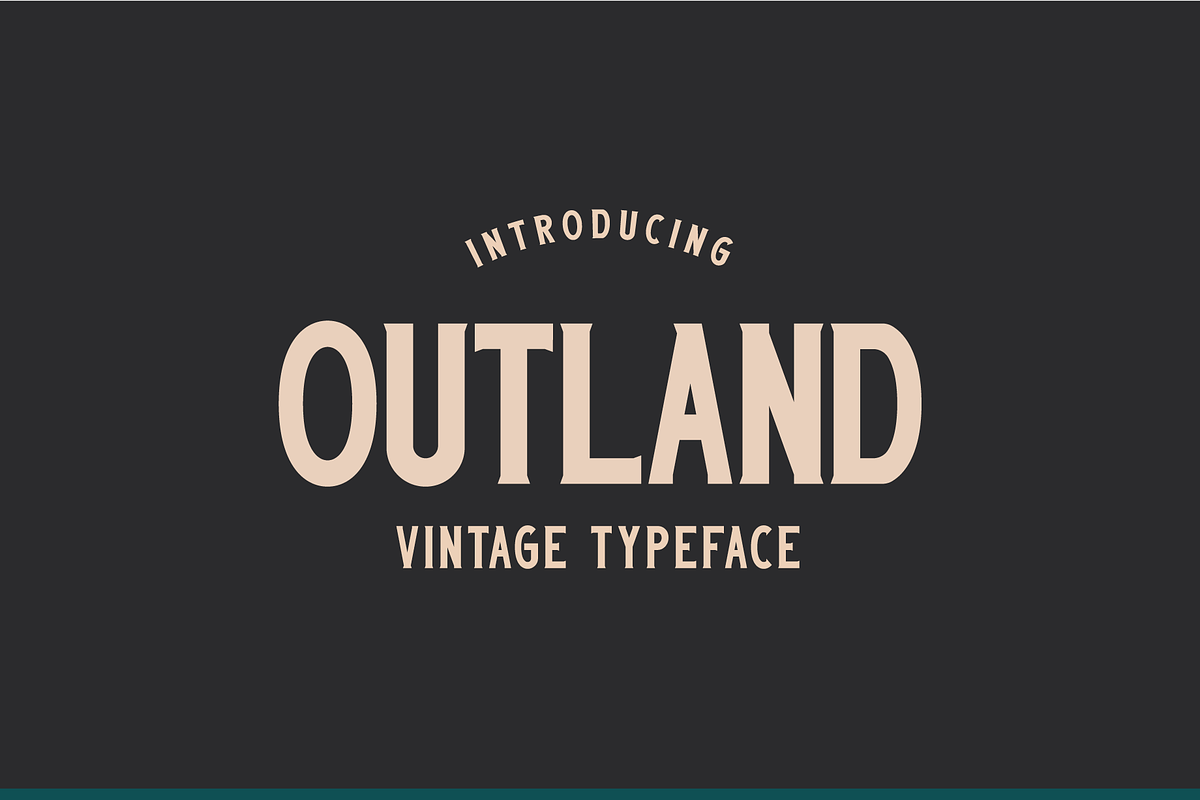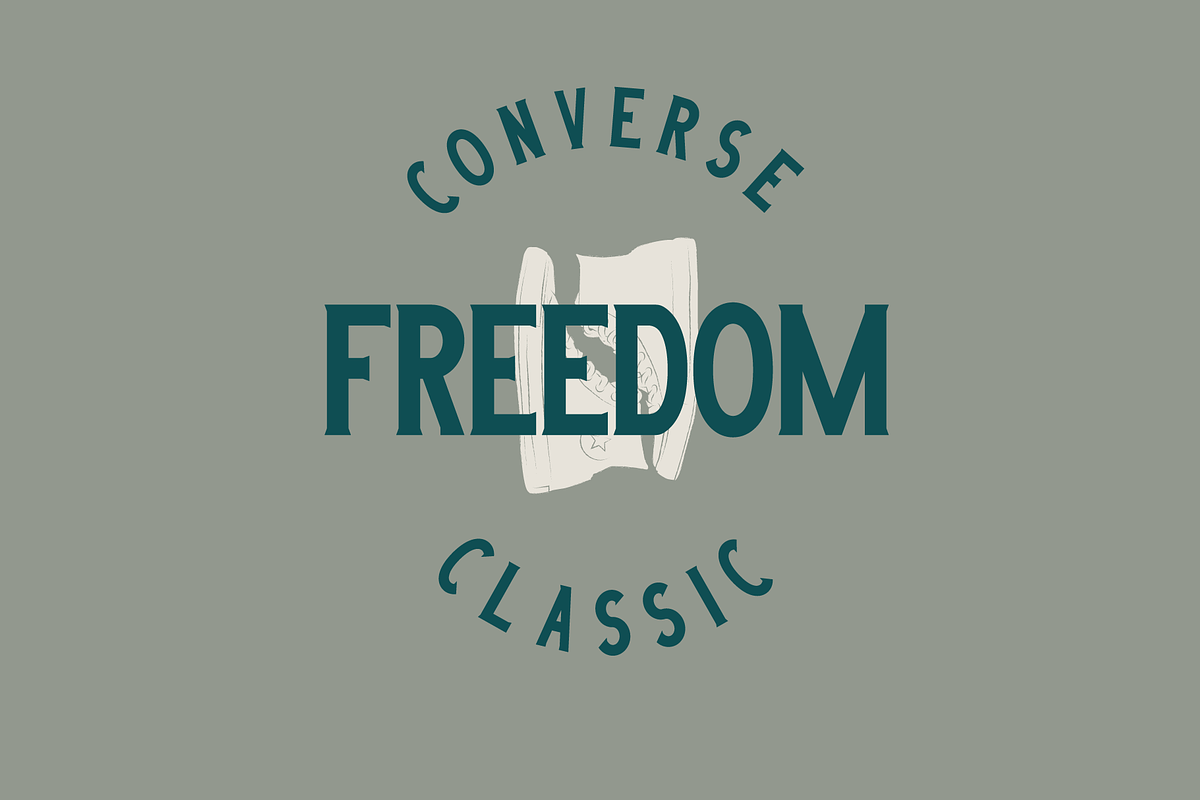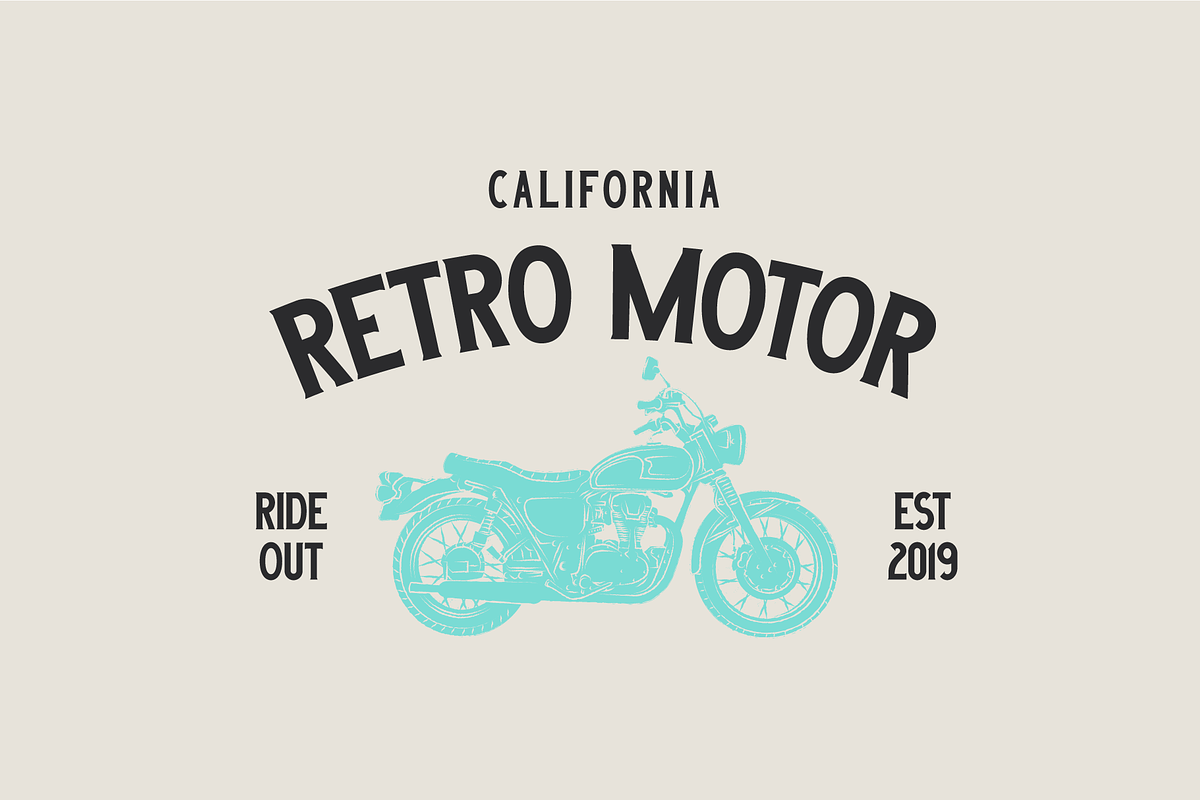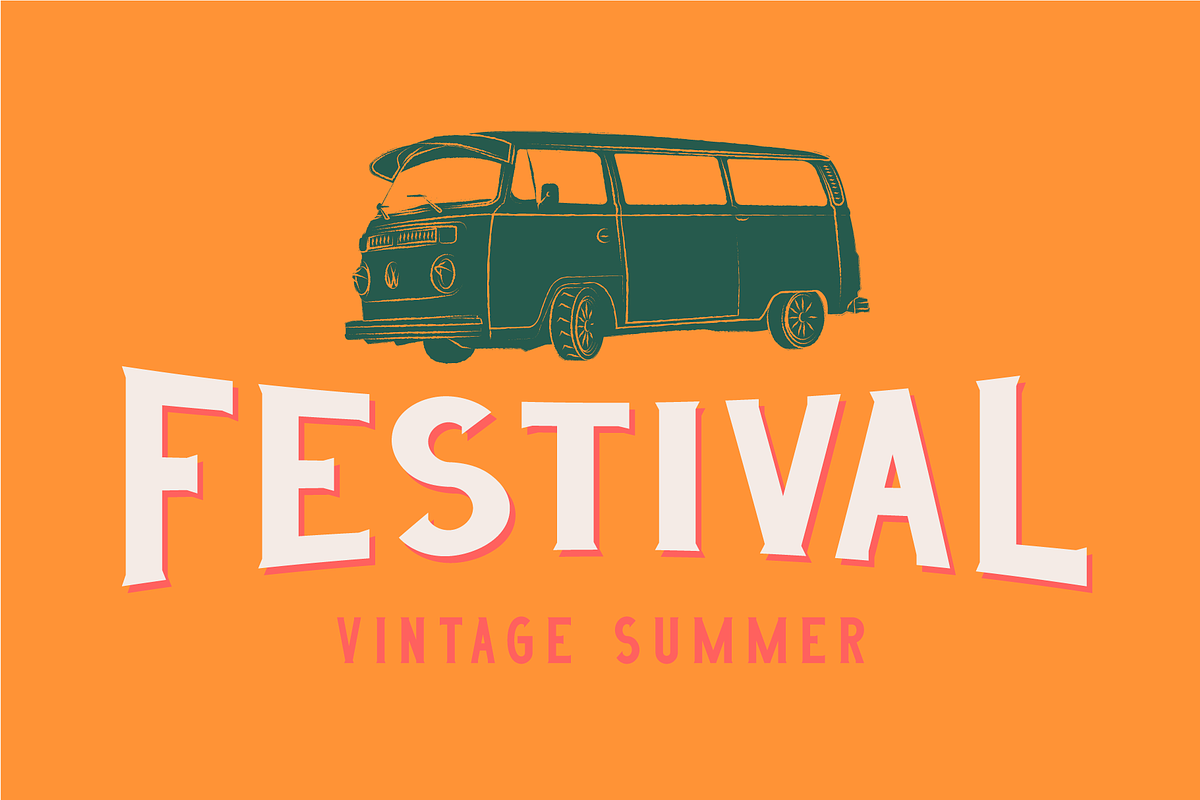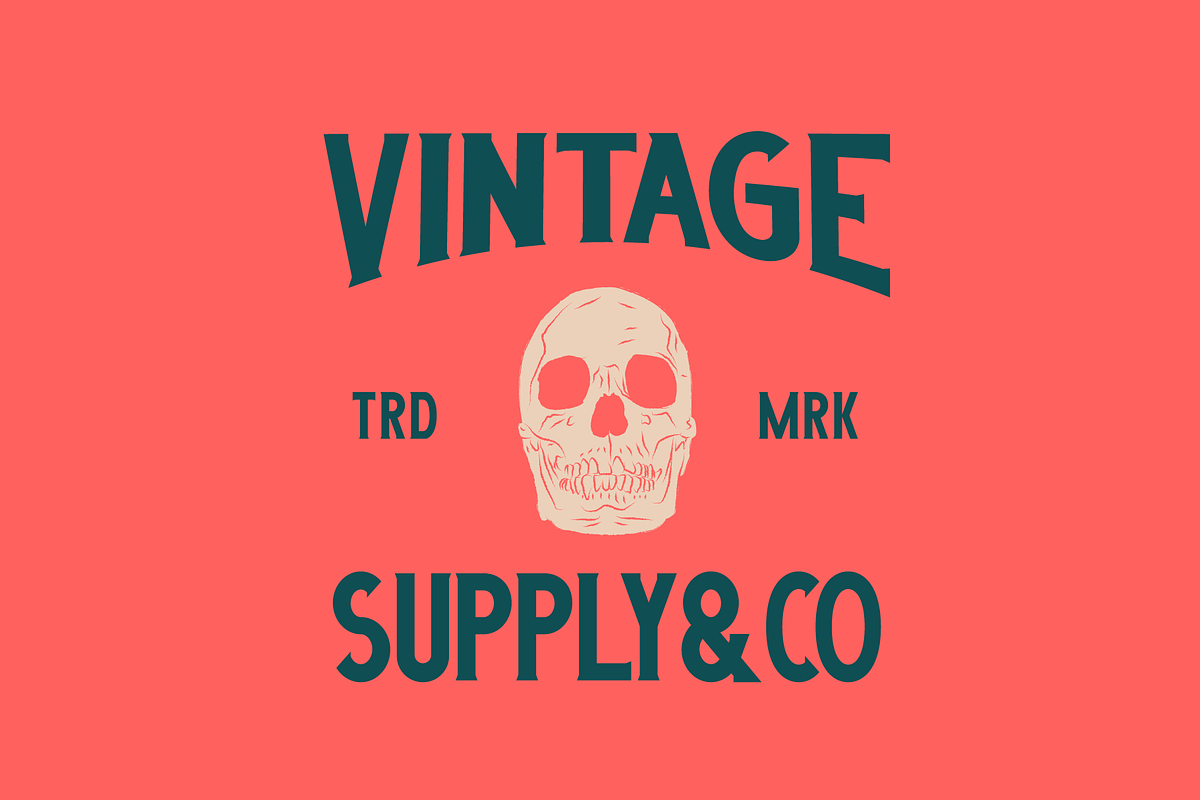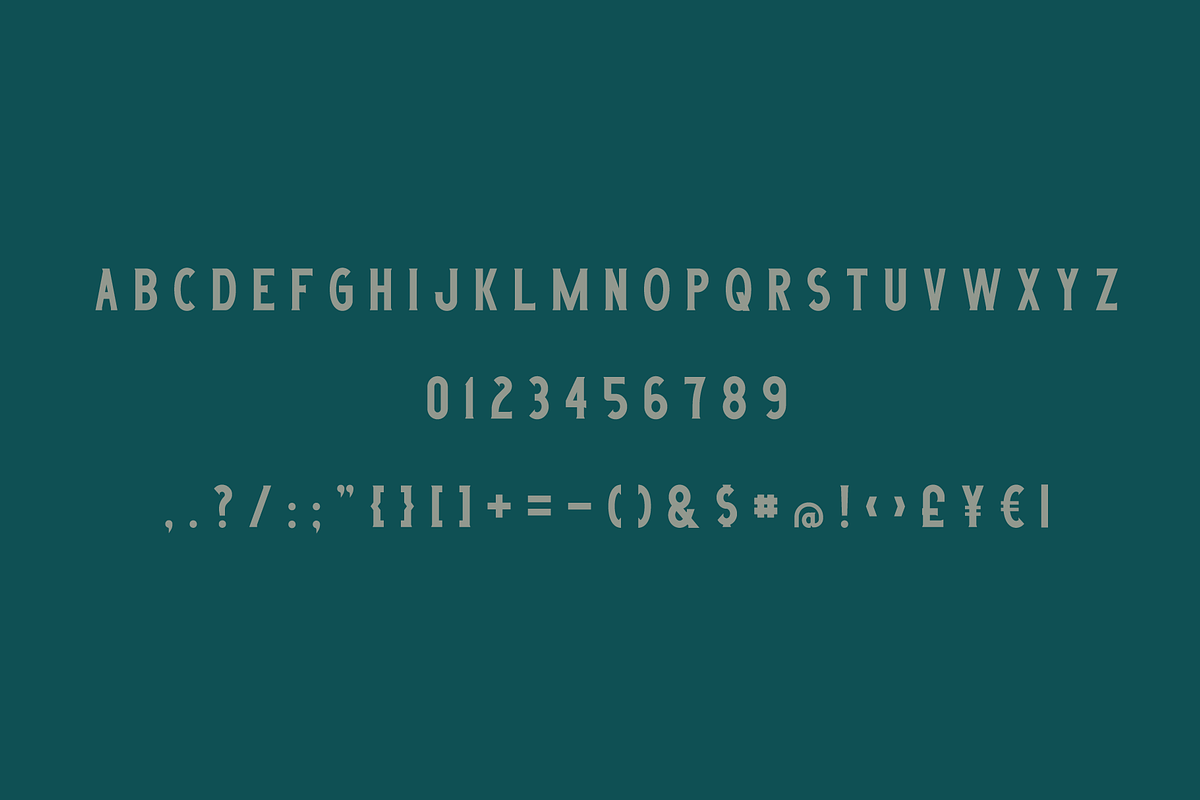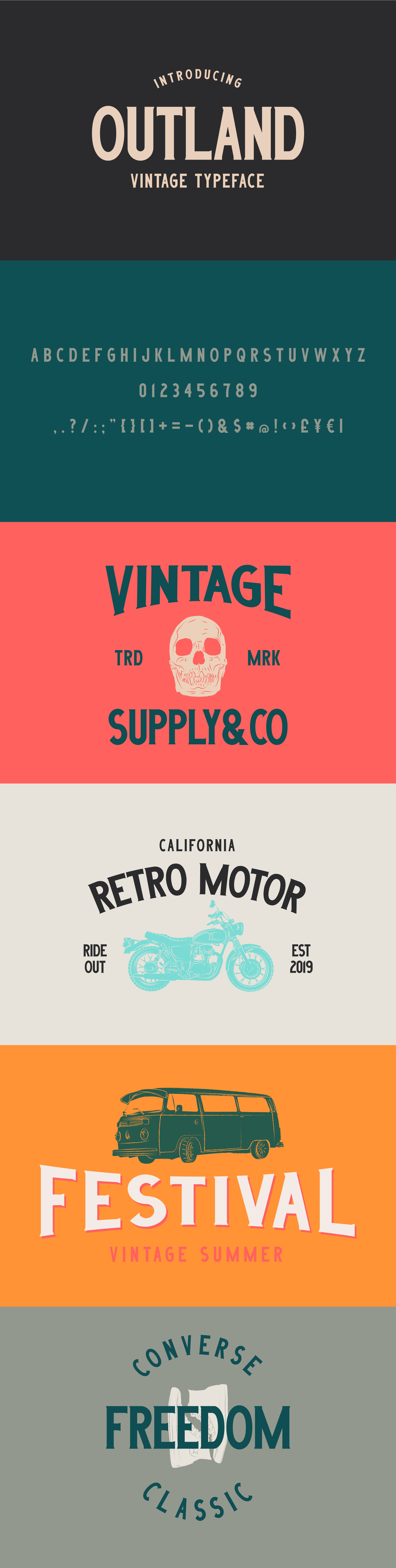
Outland - Vintage Typeface
Introducing Outland - Vintage Typeface
Outland is a vintage serif typeface including:
- 4 premade logotype,
- retro illustrations.